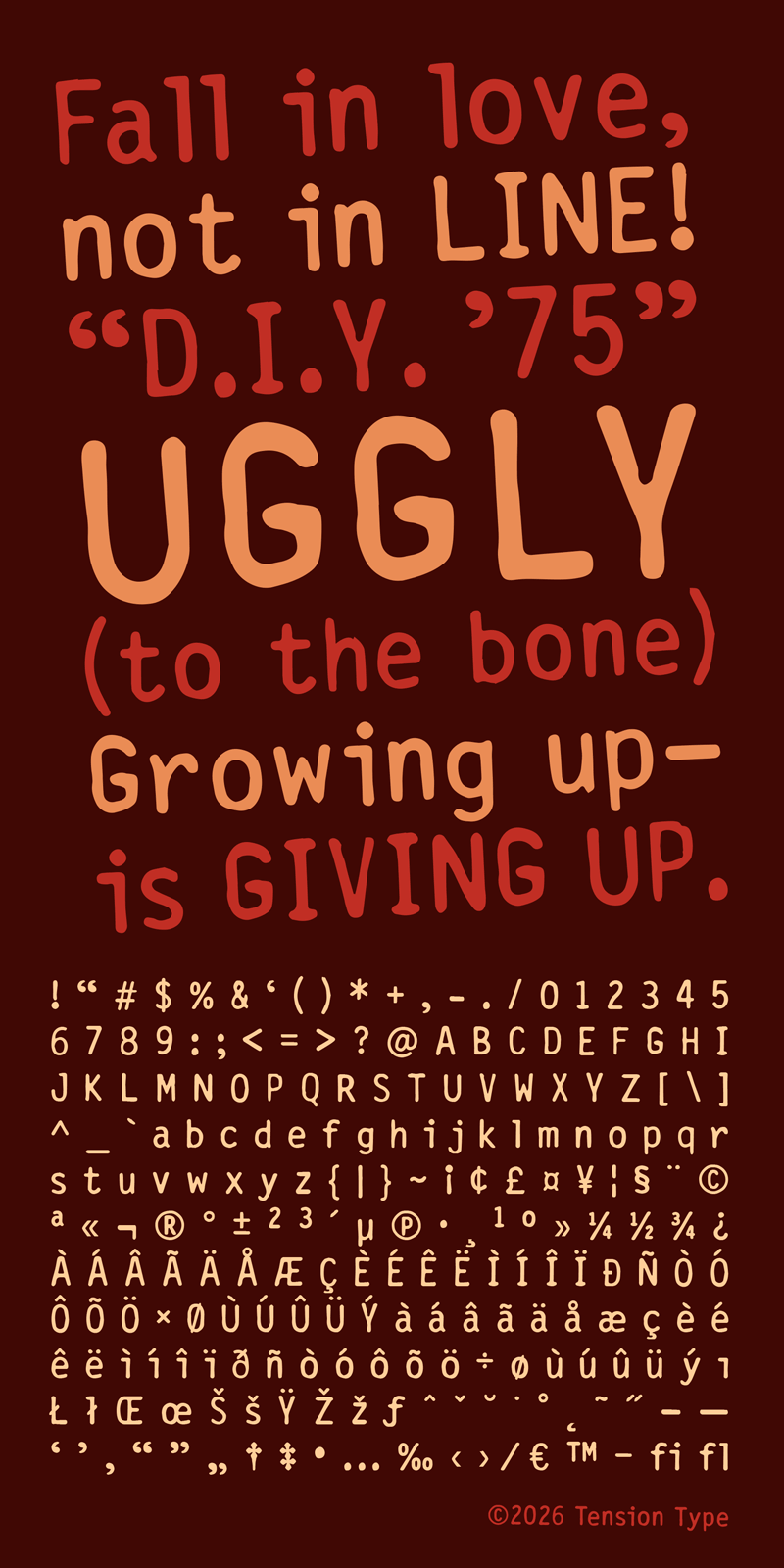
D.I.Y. ’75
Tension Type · Regular · D.I.Y. ’75
D.I.Y. ’75
Font familyD.I.Y. ’75
D.I.Y. ’75 is another font I created for a commercial project I did in 2022. It was a vinyl album booklet for an early 1970s band. The band used to have a fanzine they made themselves. I rebuilt some for the booklet based on scans of original copies of the fanzine. There were some missing pieces so I needed to recreate them. This typeface was part of that process.
D.I.Y. ’75 illustration